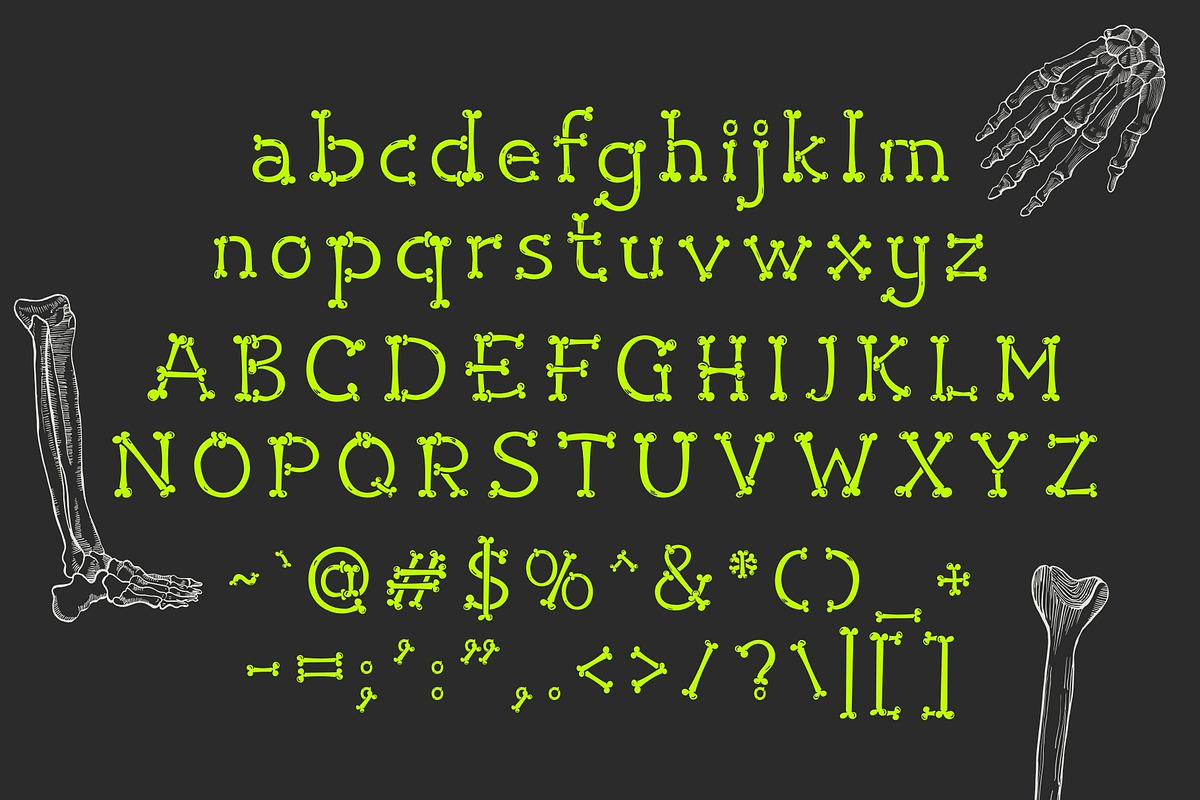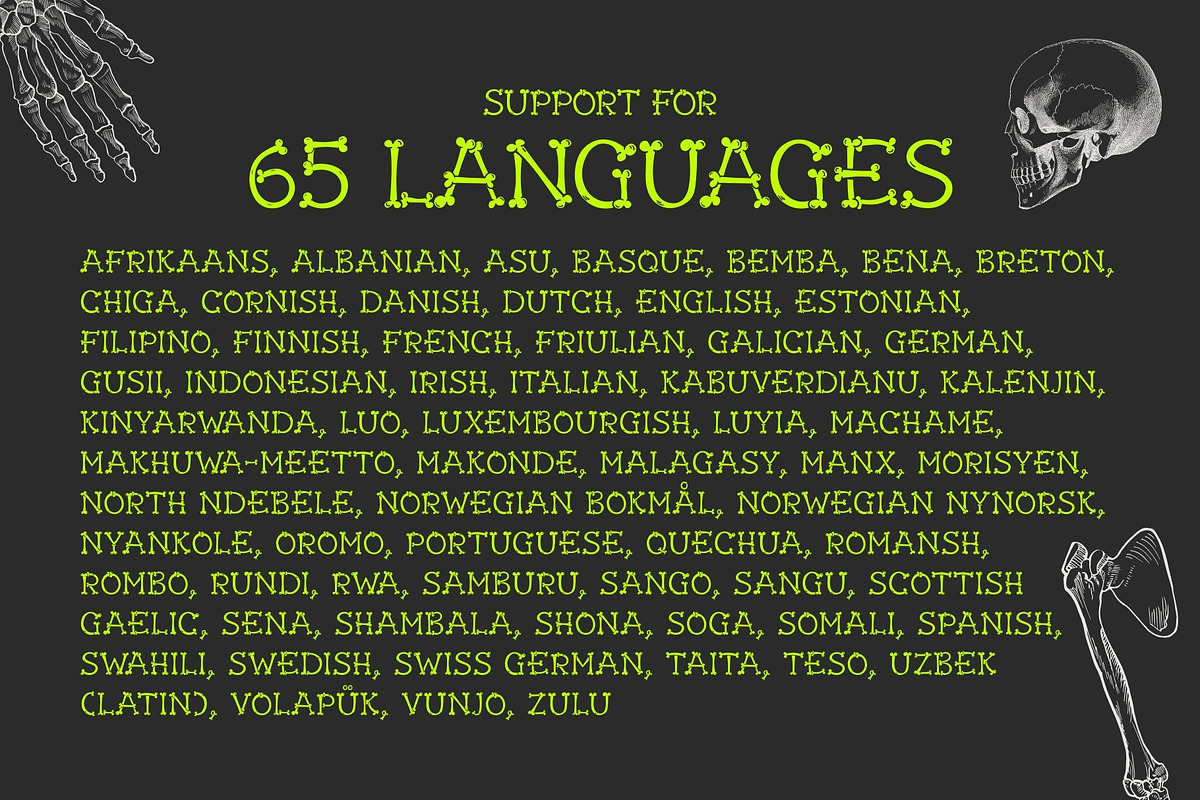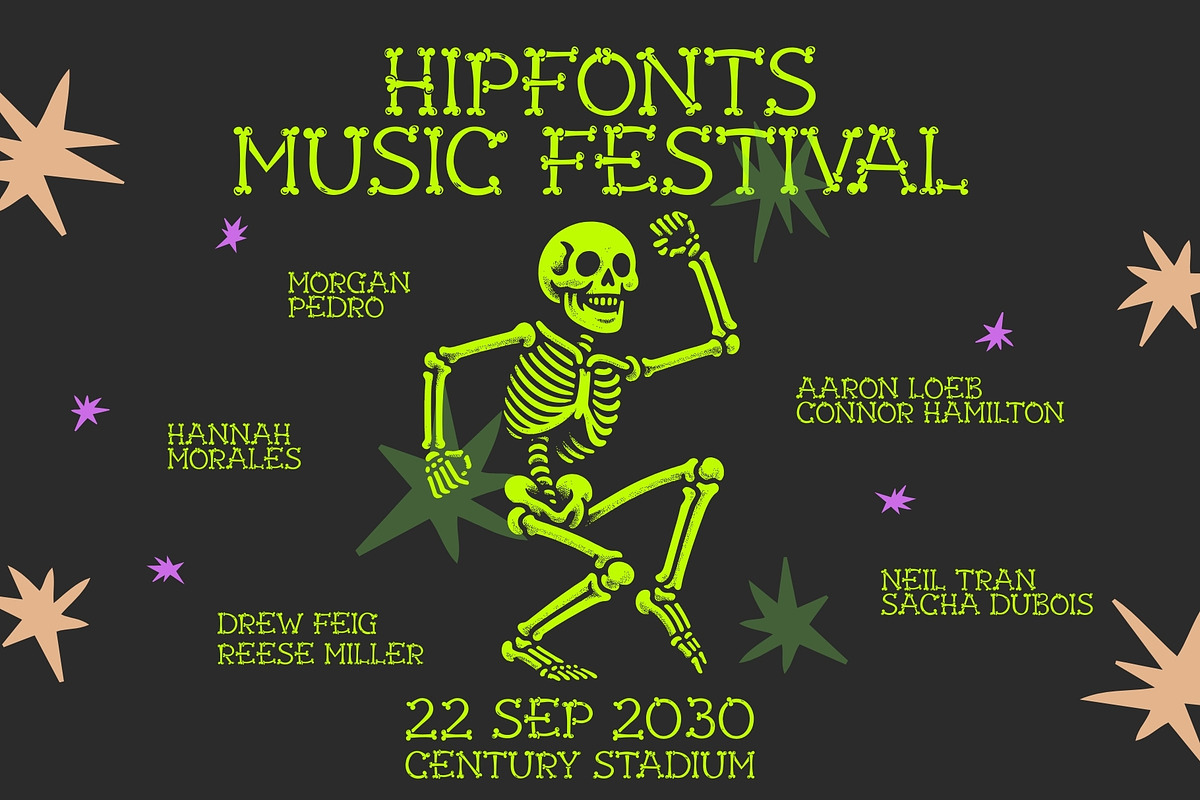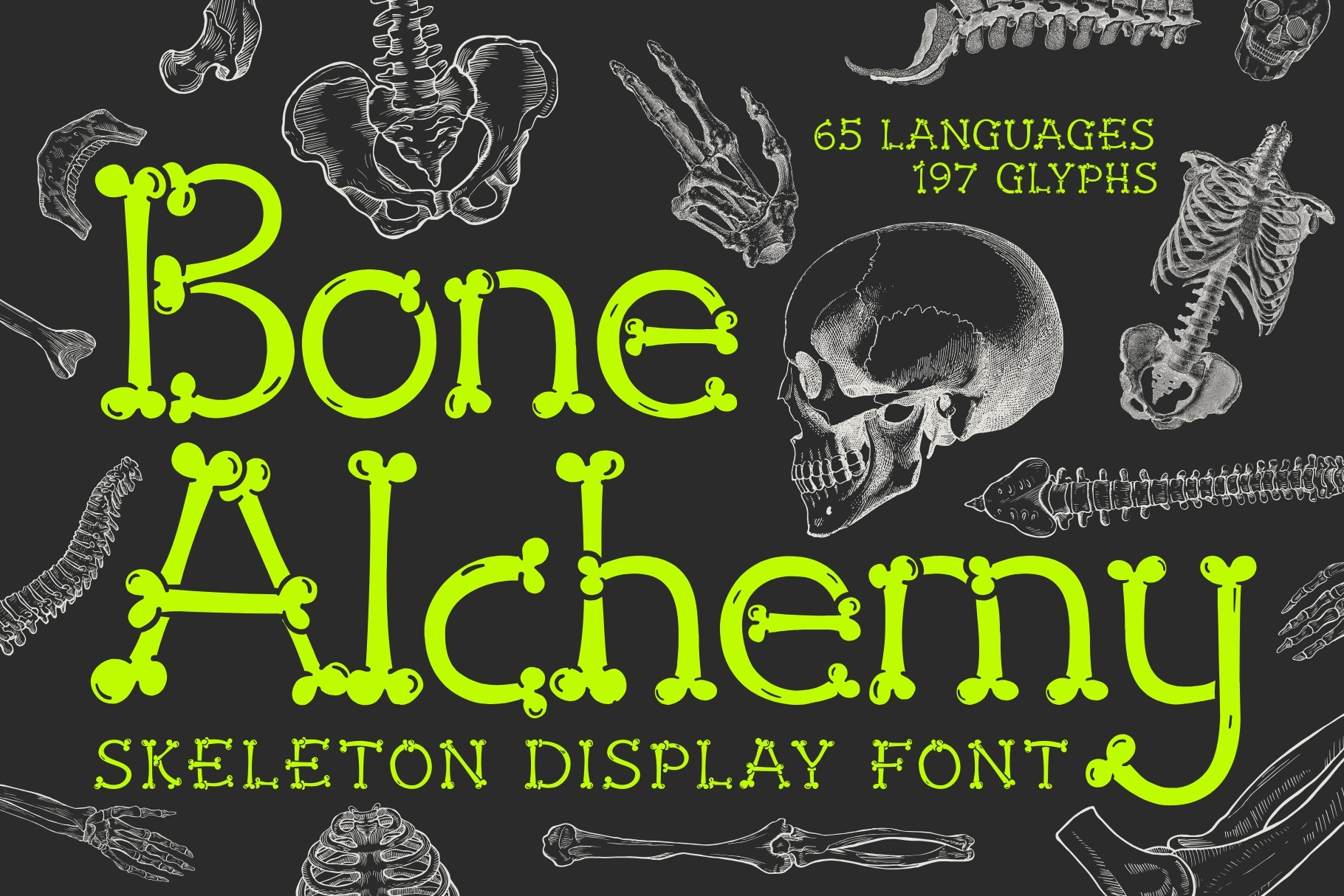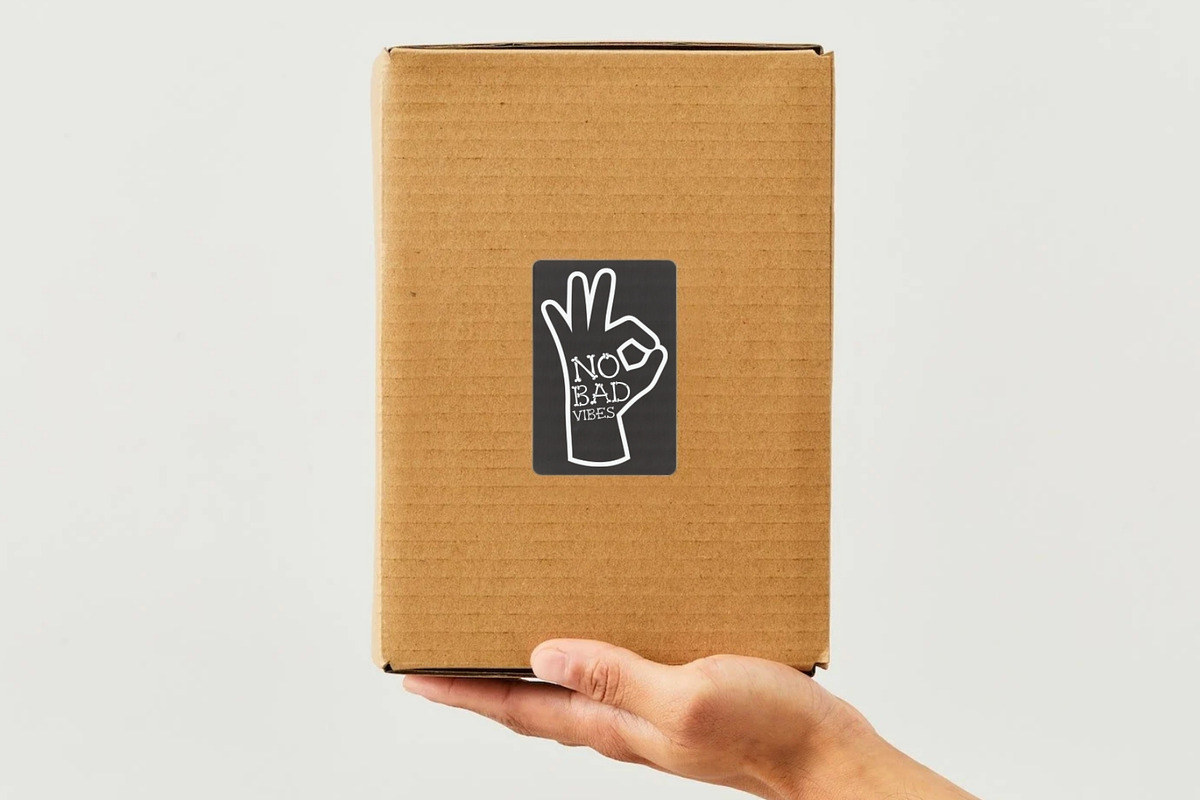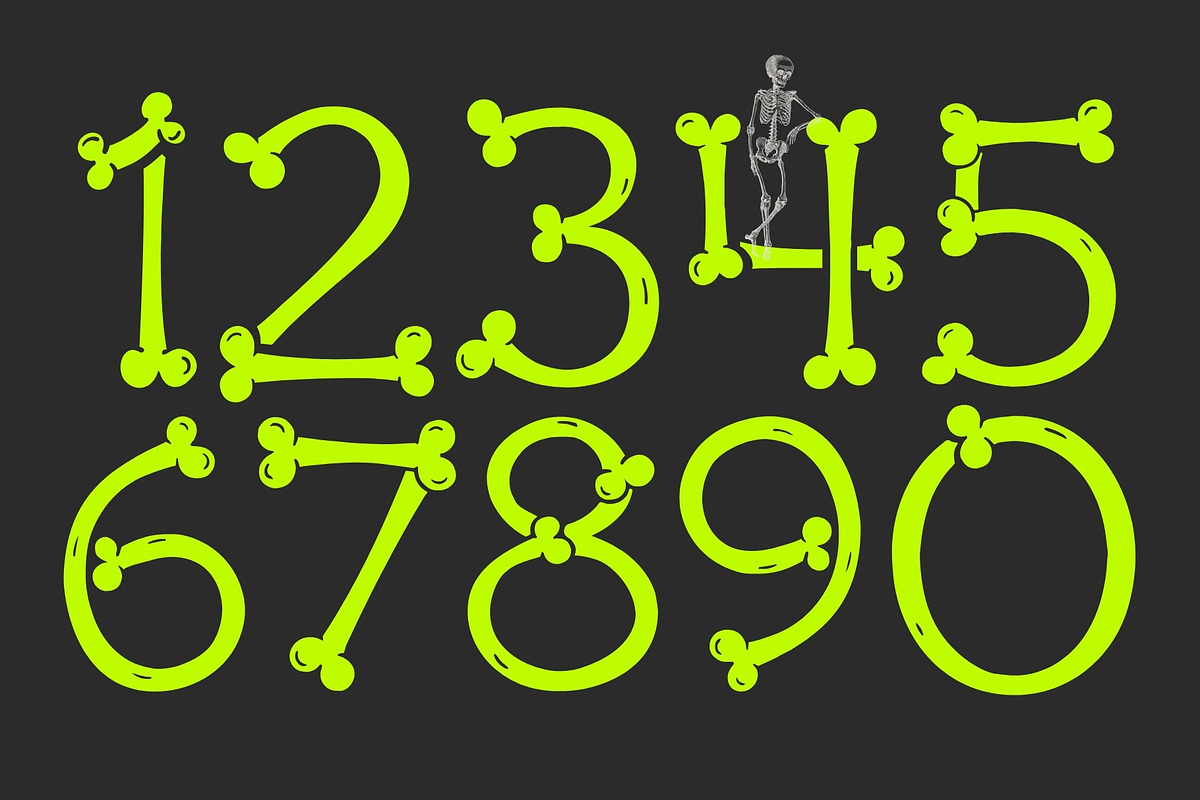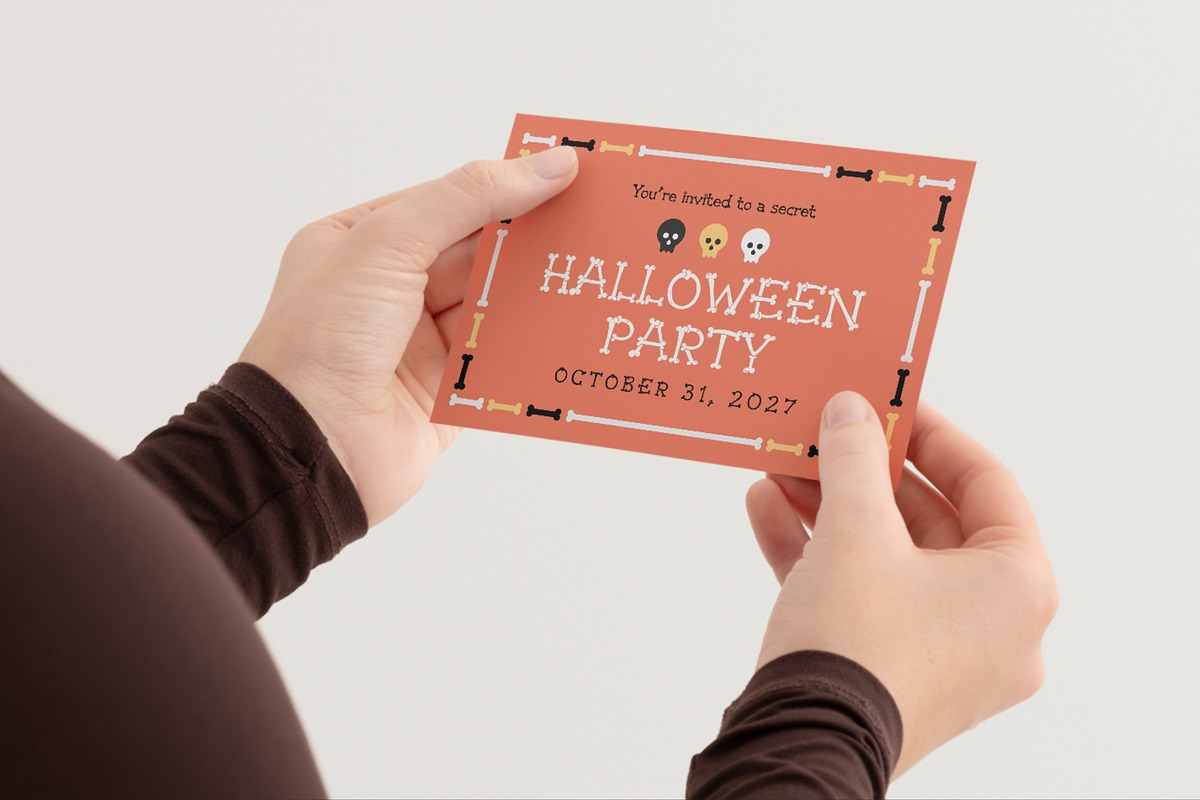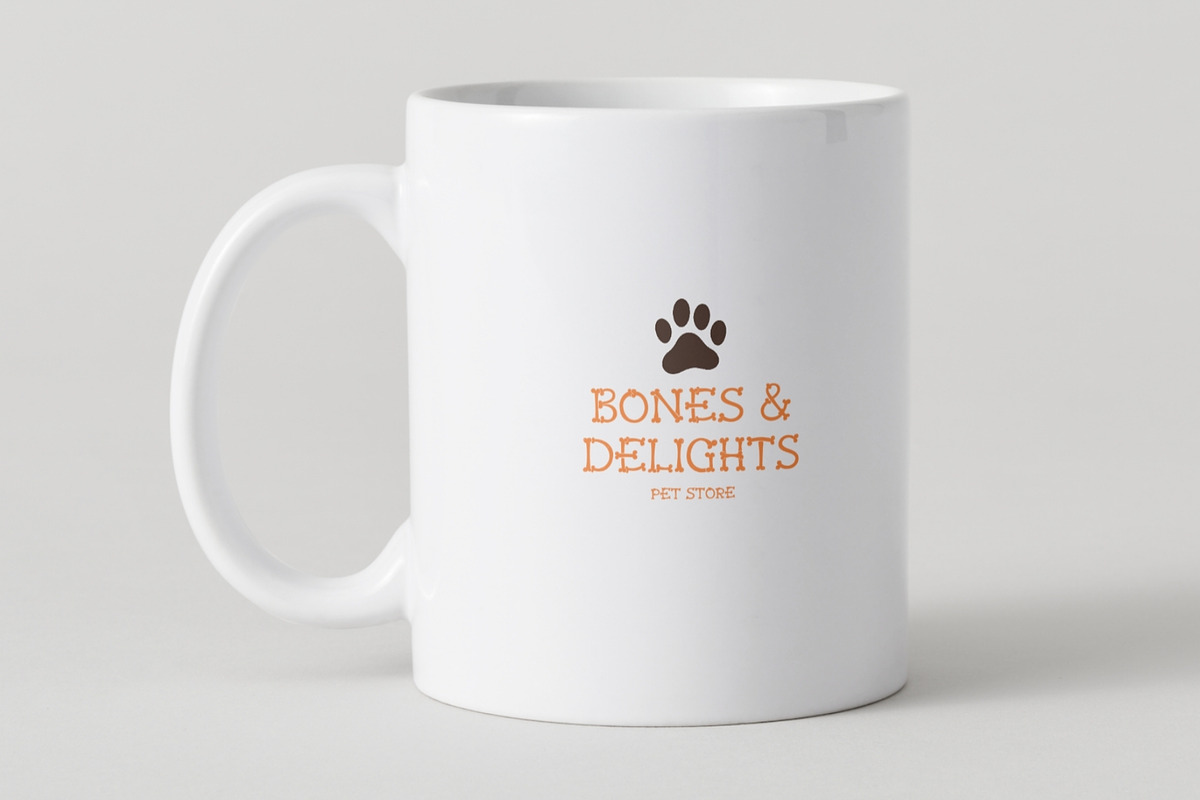
Bone Alchemy - Skeleton Typeface
Conjured from the shadows of forgotten rituals and the playful mischief of the macabre, Bony Alchemy is a skull-and-bone inspired display typeface that transforms skeletal forms into bold, eye-catching typography.
Built from chunky bone-like structures and carved with subtle organic imperfections, this font blends eerie charm with whimsical personality. Each letter feels assembled — as if pieced together from enchanted remains — creating a look that’s spooky without losing its sense of fun.
Bony Alchemy walks the line between creepy and charismatic. It’s dramatic enough for dark themes, yet playful enough for seasonal and character-driven designs. The result is a typeface that feels alive… even though it’s made of bones.
Halloween branding
Spooky merchandise
Candy packaging
Event posters & invites
Kids Halloween books
Seasonal social media graphics
Apparel & stickers
Themed party designs
Whether you're crafting something eerie, cute, or mischievously magical, Bony Alchemy delivers a bone-chilling personality that grabs attention instantly.
It’s spooky. It’s fun. It’s skeletal design magic.